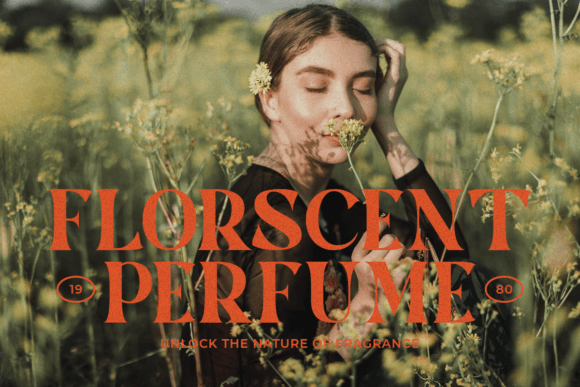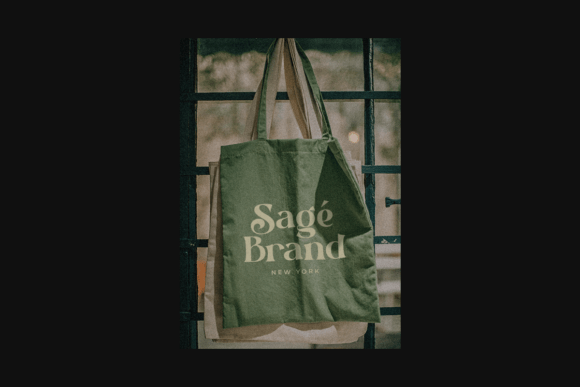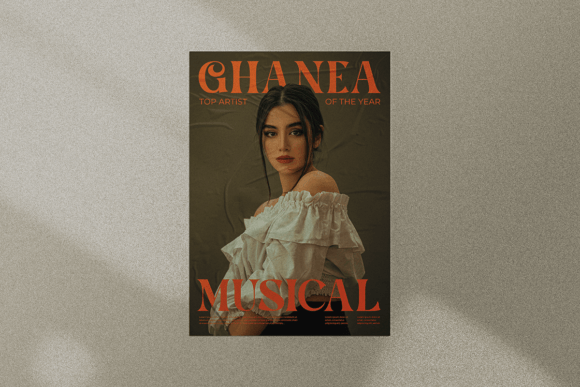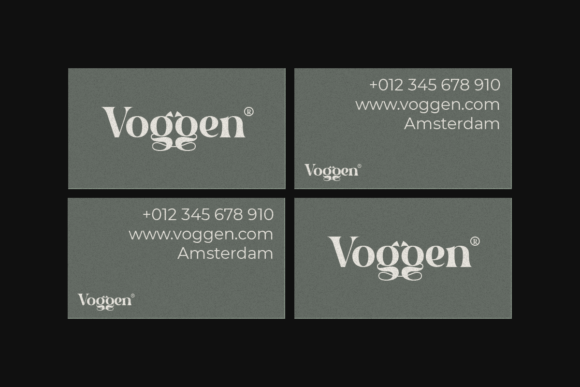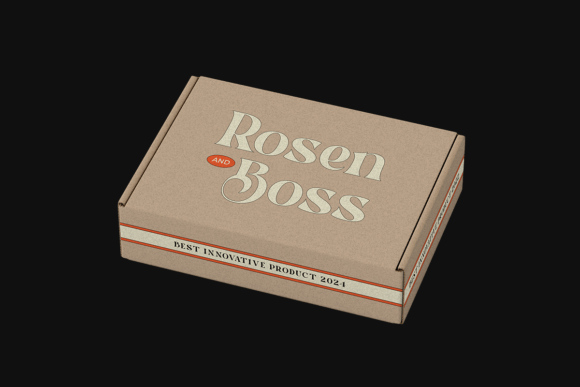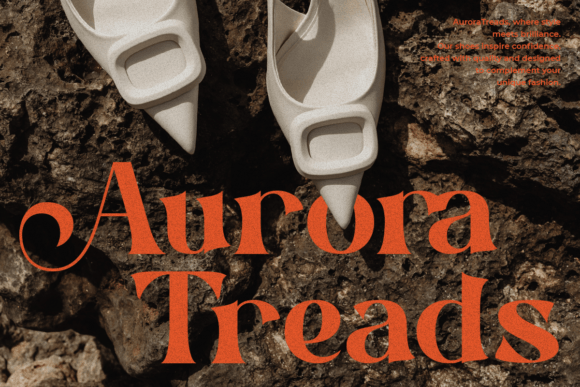
Introducing Glow Bloom: The Modern Elegant Serif Typeface for Luxurious Designs
Are you a designer or crafter looking for a sophisticated and elegant font to elevate your designs? Look no further than Glow Bloom, a modern serif typeface that exudes luxury and refinement. With its unique alternative, multilingual support, and perfect kerning, Glow Bloom is the perfect choice for a wide range of design projects.
What Makes Glow Bloom Special?
Glow Bloom is a carefully crafted typeface that boasts a range of features that set it apart from other fonts. Its modern elegant serif design makes it perfect for creating sophisticated and luxurious designs that are sure to impress. The font comes with a unique alternative, allowing you to experiment with different styles and create a truly one-of-a-kind look.
Multilingual Support for Global Designs
In today’s global market, it’s essential to have a font that can support multiple languages. Glow Bloom delivers, with multilingual support that allows you to create designs that can reach a global audience. Whether you’re designing for a fashion brand, a cosmetic company, or a luxury goods provider, Glow Bloom has got you covered.
Perfect Kerning for Professional-Looking Designs
Kerning is a crucial aspect of typography, and Glow Bloom has been carefully crafted to ensure perfect kerning. This means that your designs will look professional and polished, with no awkward gaps or overlaps between letters. The result is a clean and elegant look that will elevate your designs to the next level.
Ideal for a Range of Design Projects
So, what can you use Glow Bloom for? The possibilities are endless! This versatile typeface is perfect for:
- Elegant logos and branding
- Classy editorial design and publishing
- Women’s magazines and fashion publications
- Fashion brands and cosmetic companies
- Fashion promotions and advertising
- Invitation cards and event design
- Art quotes and home decor
- Book and cover titles
- Special events and packaging design
- Tote bags and apparel
Why Choose Glow Bloom?
With so many fonts on the market, why choose Glow Bloom? Here are just a few reasons why this typeface stands out:
- Unique and elegant design
- Multilingual support for global designs
- Perfect kerning for professional-looking designs
- Versatile and adaptable for a range of design projects
- Easy to use and integrate into your designs
If you’re looking for a font that will take your designs to the next level, look no further than Glow Bloom. With its modern elegant serif design, unique alternative, multilingual support, and perfect kerning, this typeface has everything you need to create stunning and sophisticated designs. So why wait? Download Glow Bloom today and get ready to elevate your designs!
Design Tips and Inspiration
To get the most out of Glow Bloom, here are a few design tips and inspiration ideas:
- Experiment with different font sizes and styles to create visual interest
- Use Glow Bloom in combination with other fonts to create a unique look
- Take advantage of the font’s multilingual support to create global designs
- Use the font’s perfect kerning to create professional-looking designs
In conclusion, Glow Bloom is a modern elegant serif typeface that is perfect for designers and crafters looking to create luxurious and sophisticated designs. With its unique alternative, multilingual support, and perfect kerning, this font has everything you need to take your designs to the next level. So why wait? Download Glow Bloom today and start creating stunning designs that will leave a lasting impression!